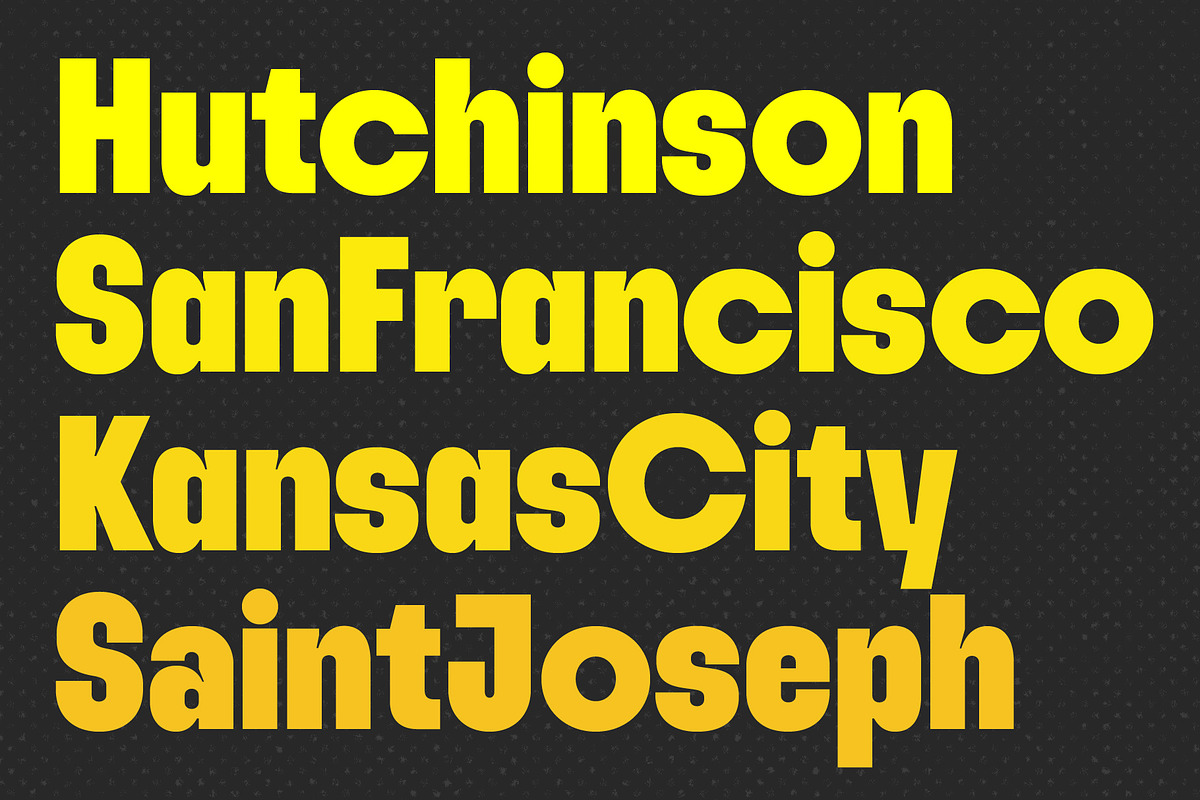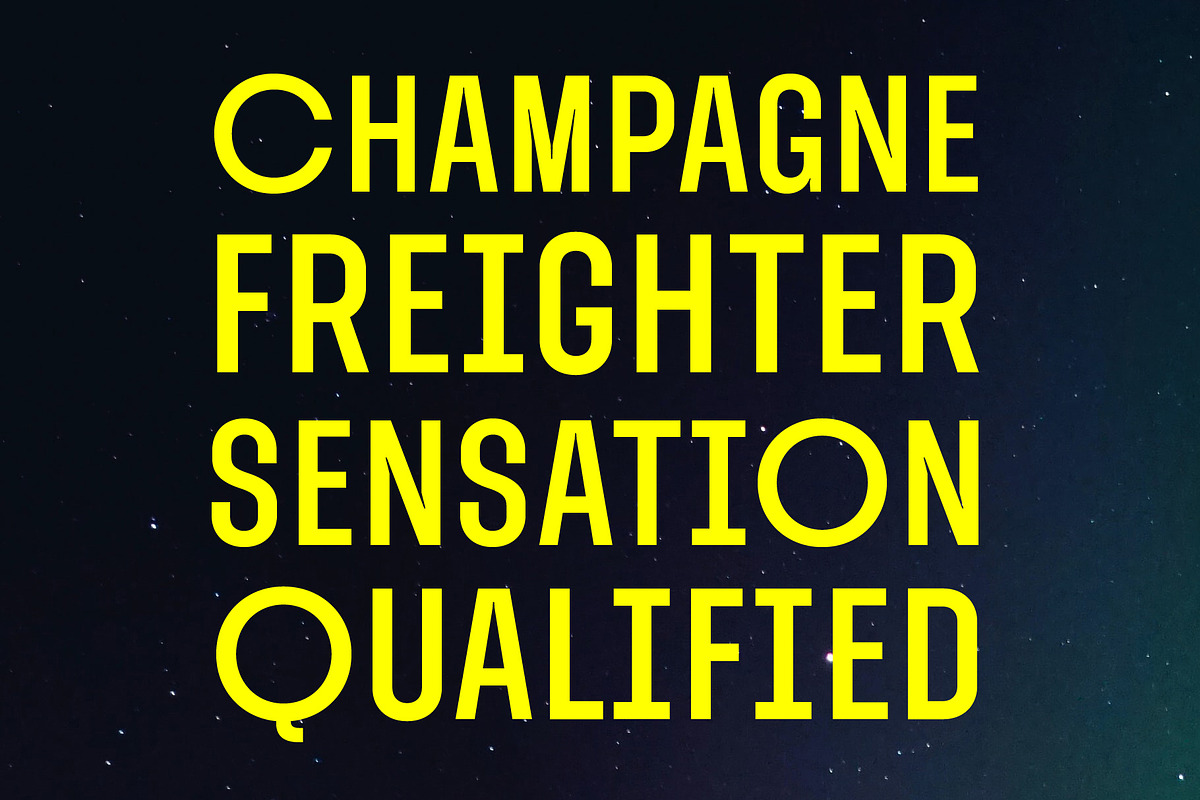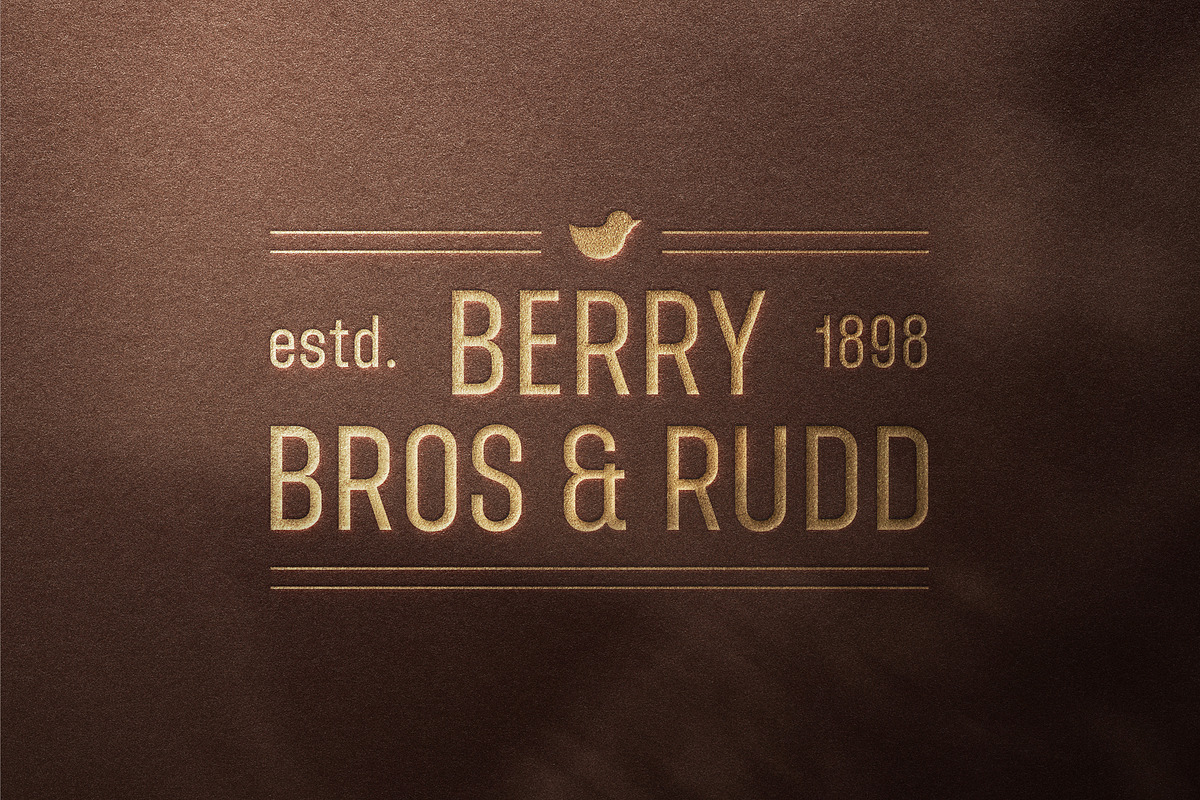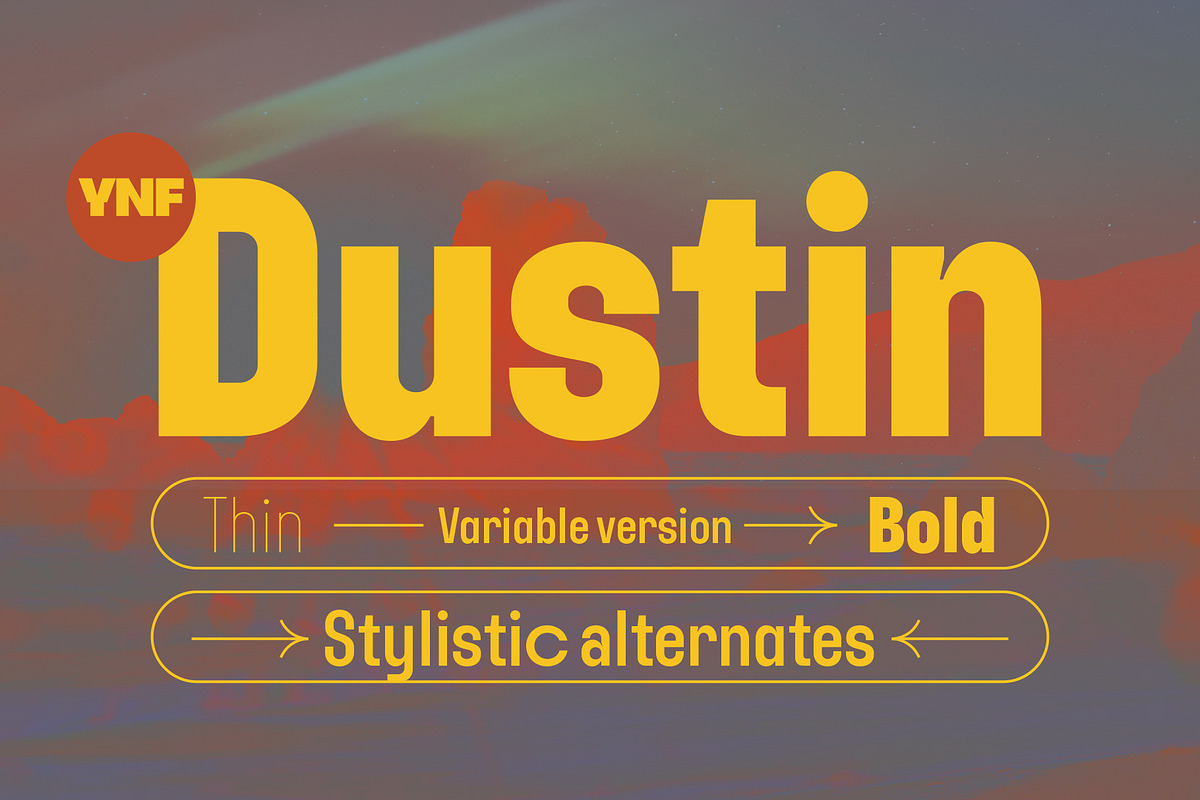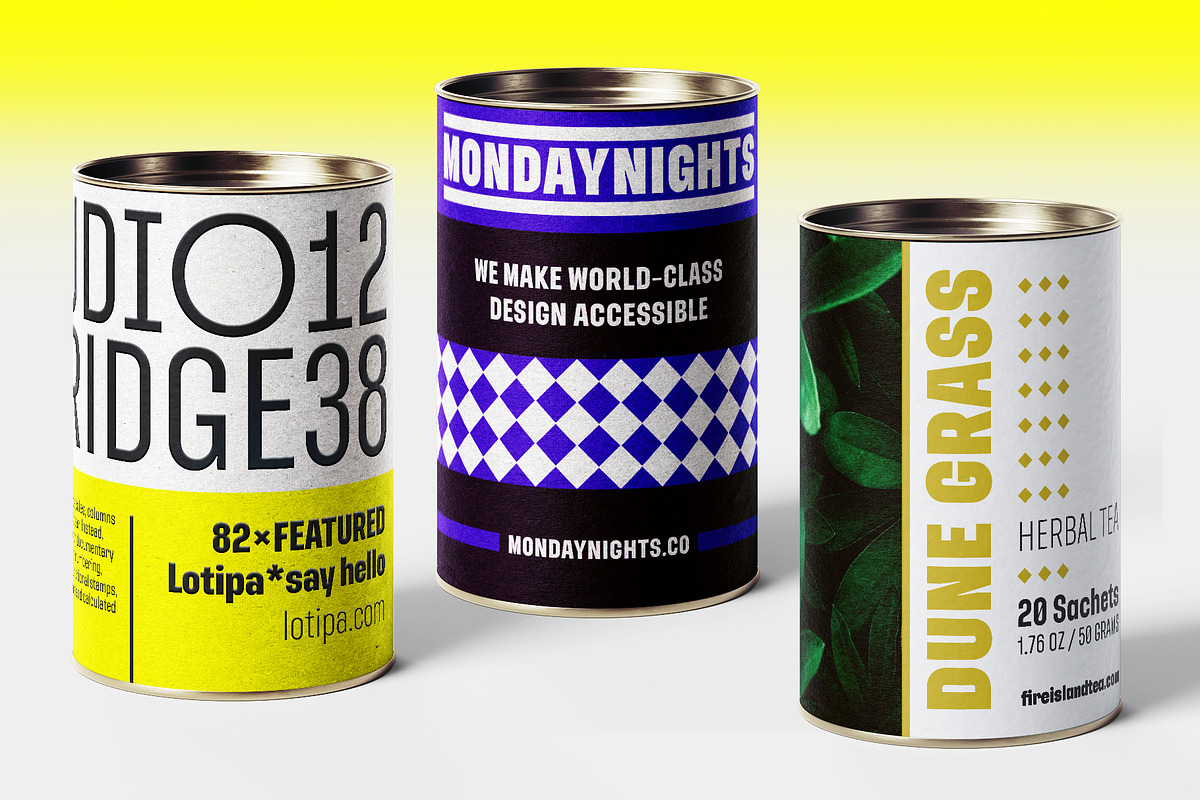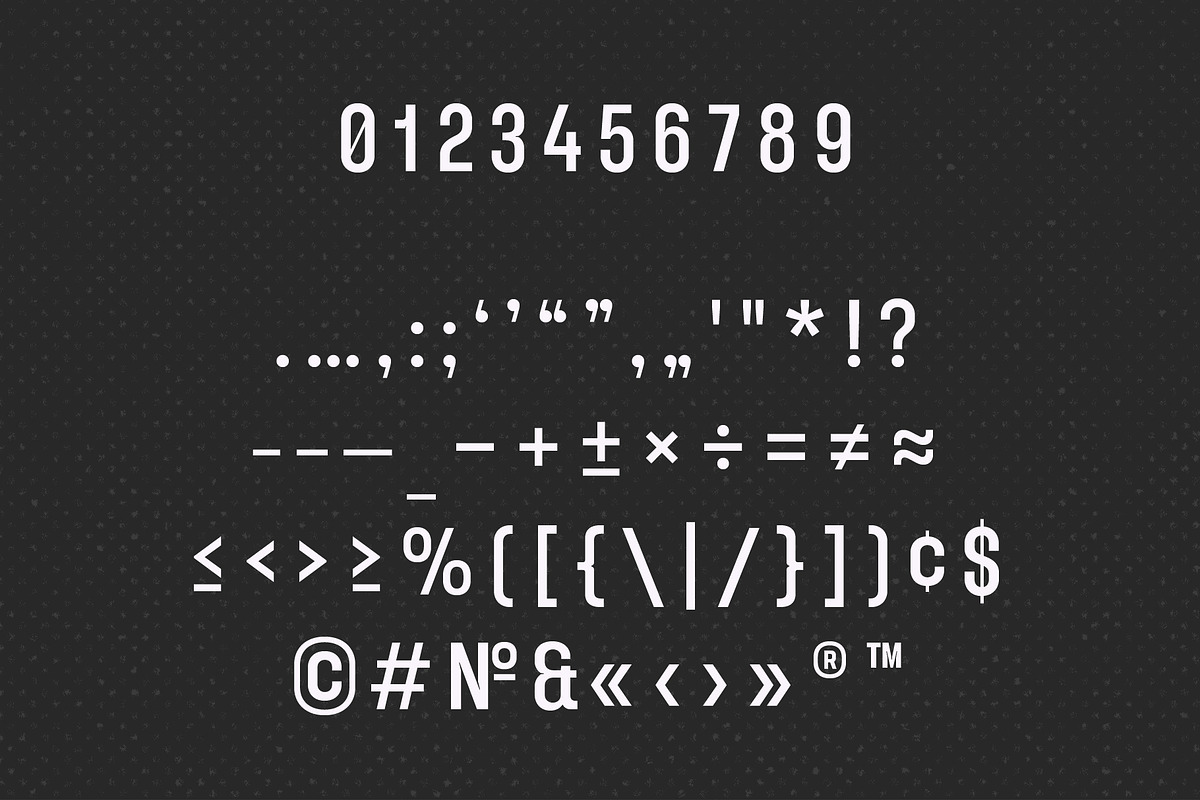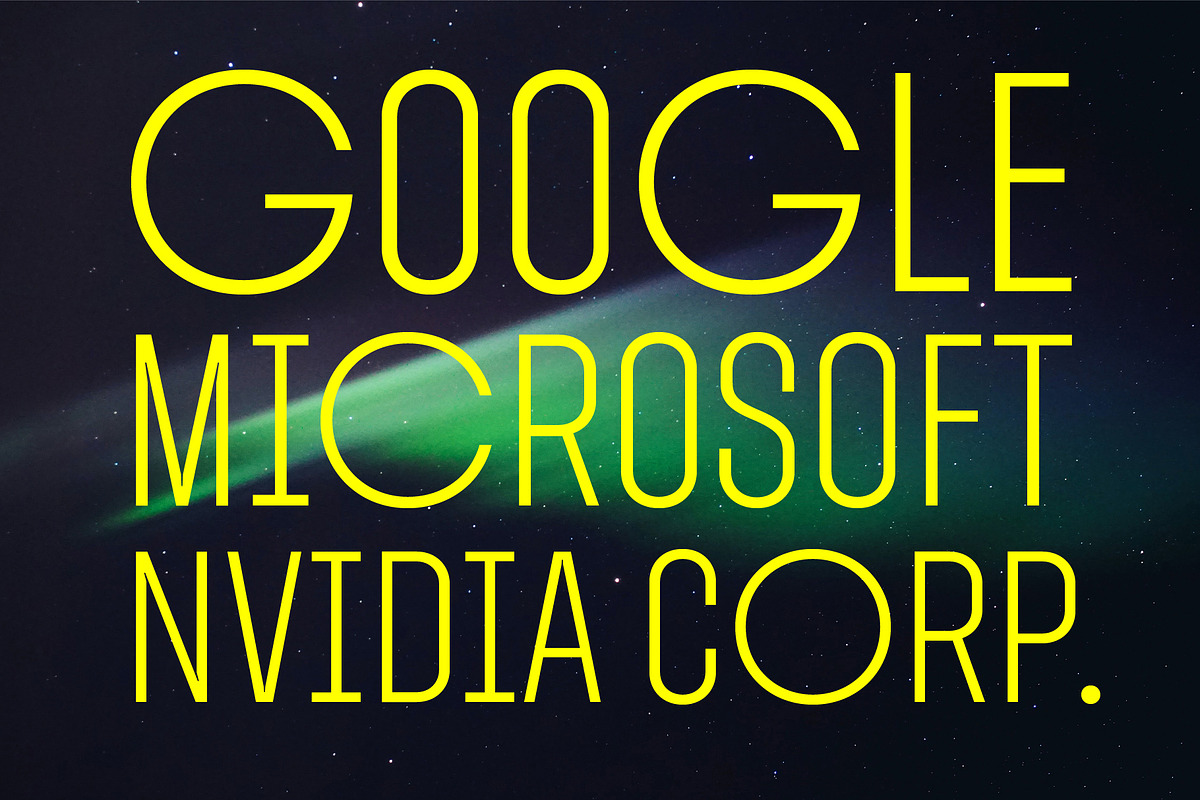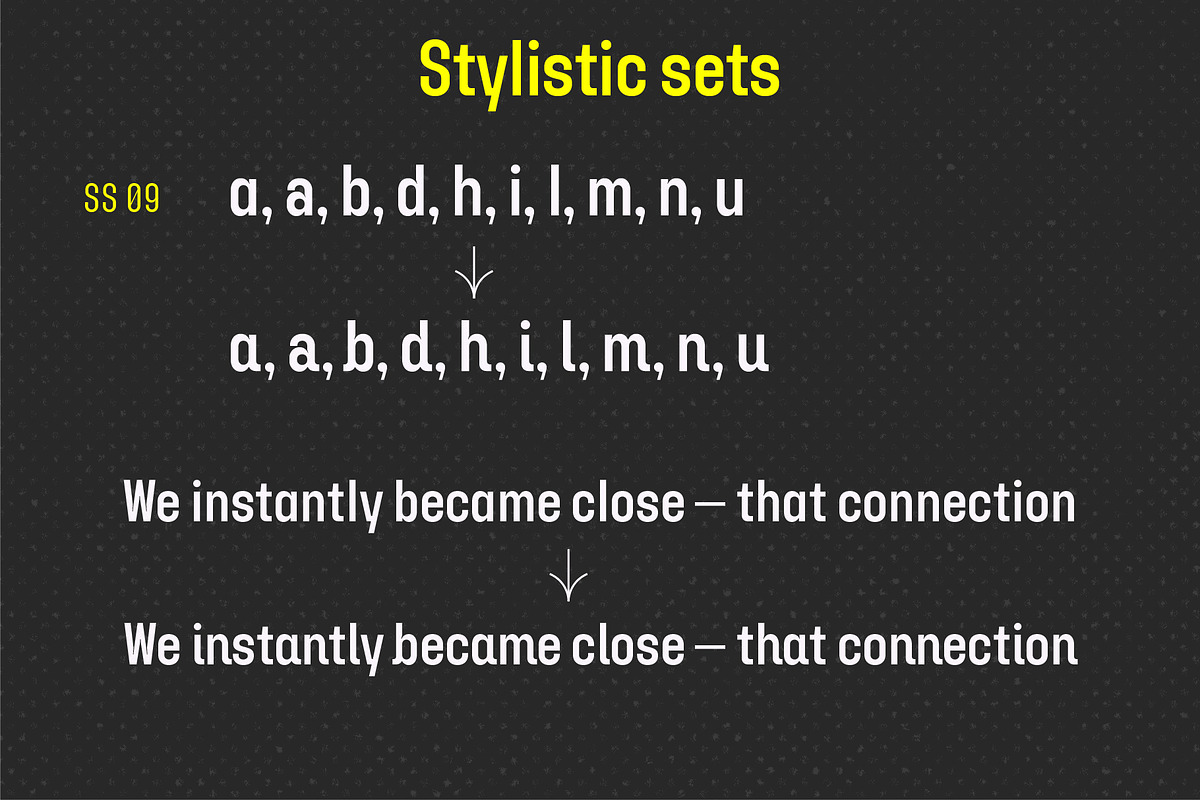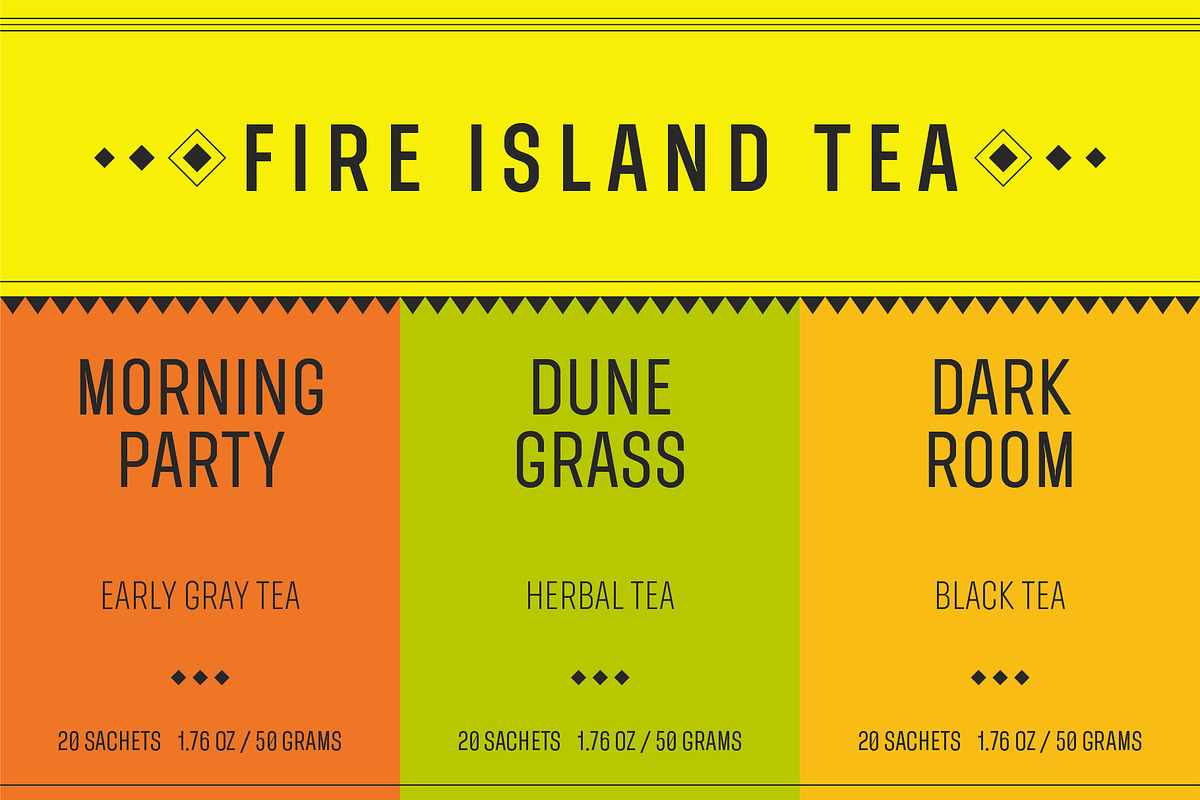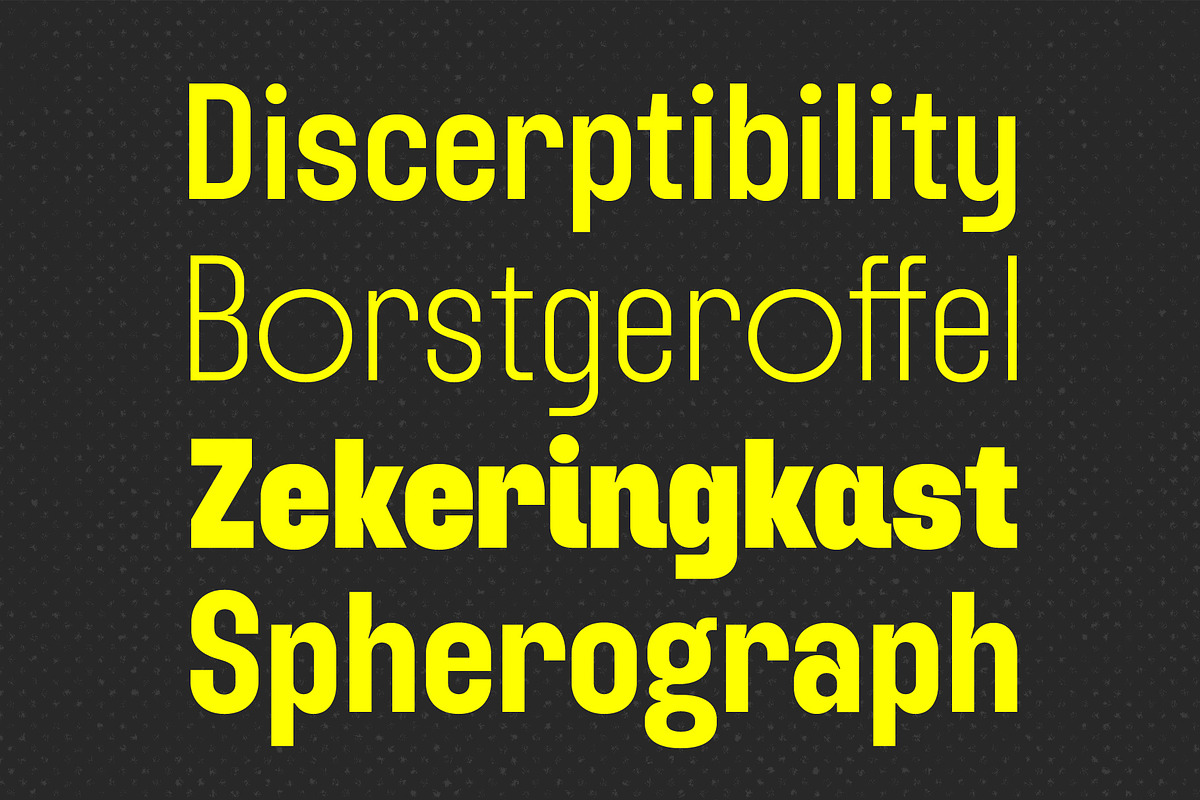
YNF Dustin | Condensed sans serif
Hello! Here is my new typeface — YNF Dustin. Condensed shape, multiple weights from Thin to Bold, lots of alternative glyphs. And a set with round letters O, G, and C! Just look at this! Good :)? By the way, variable font is included.
- Uppercase and lowercase letters
- Punctuation marks and other essential glyphs (see the list of glyphs in the presentation)
- Stylistic alternates and sets